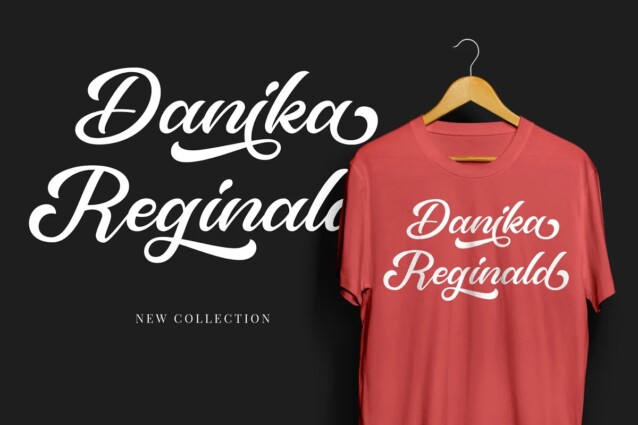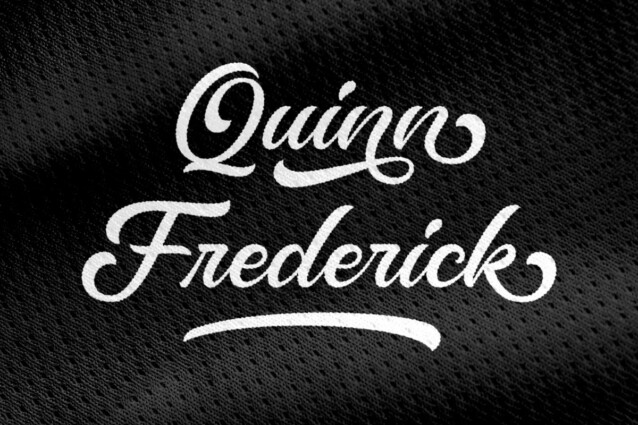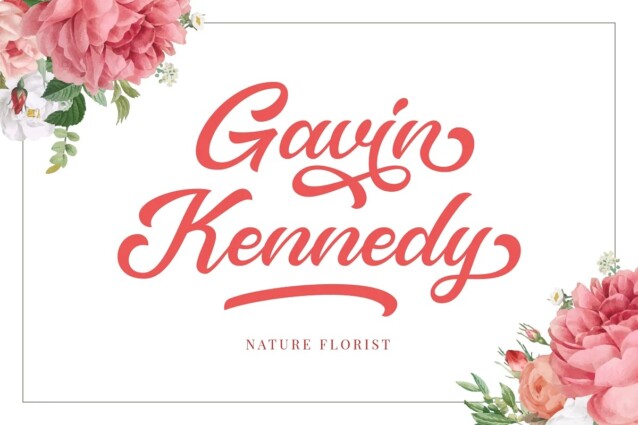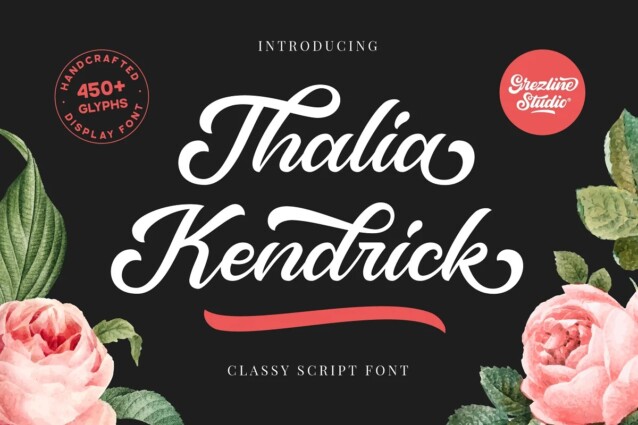
Thalia Kendrick Font
Thalia Kendrick Font is beautiful and assertive script font, crafted to give your headlines and logotype projects a stylish touch. This font reads as strong, confident, and dynamic and can add tons of nostalgic character to your designs.